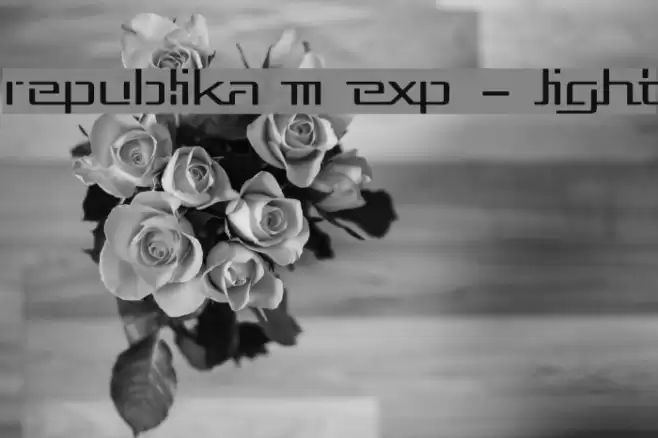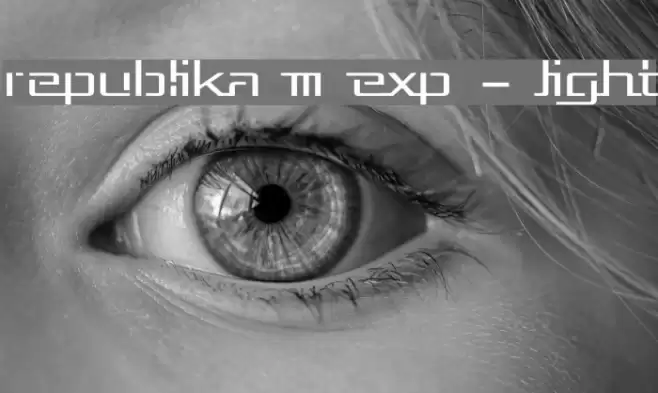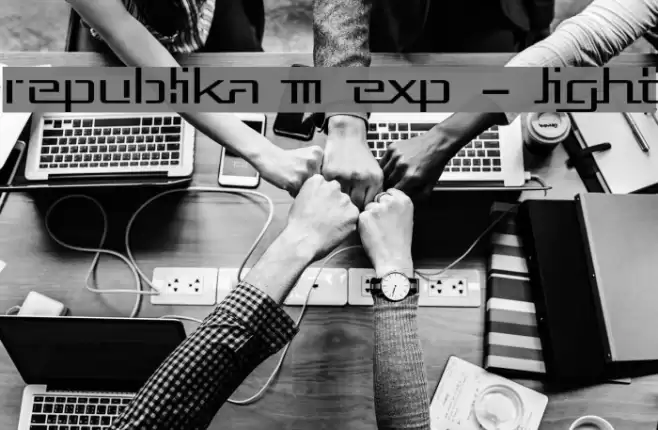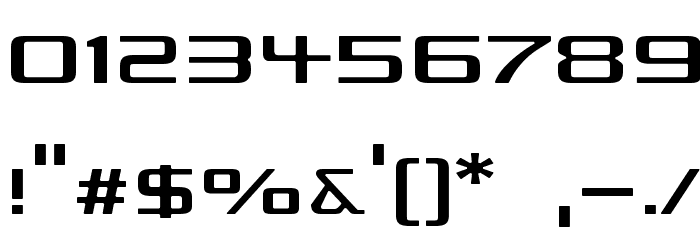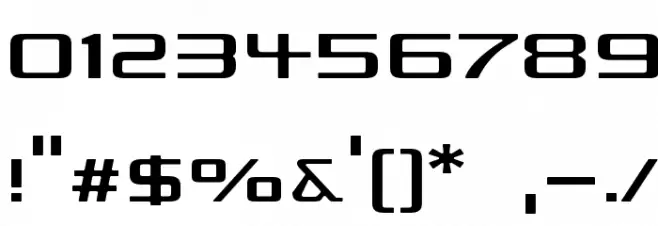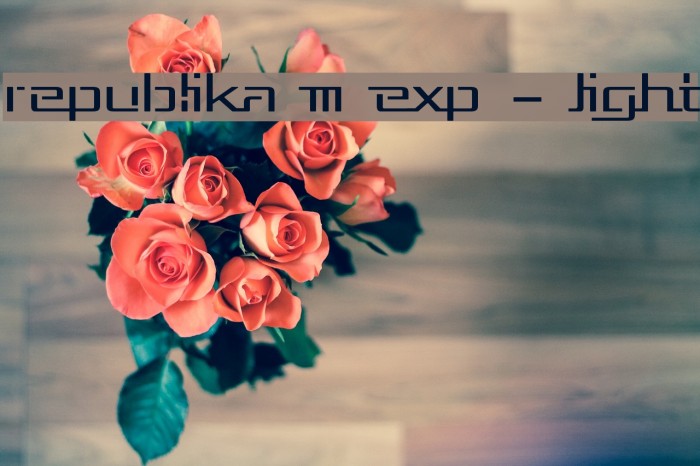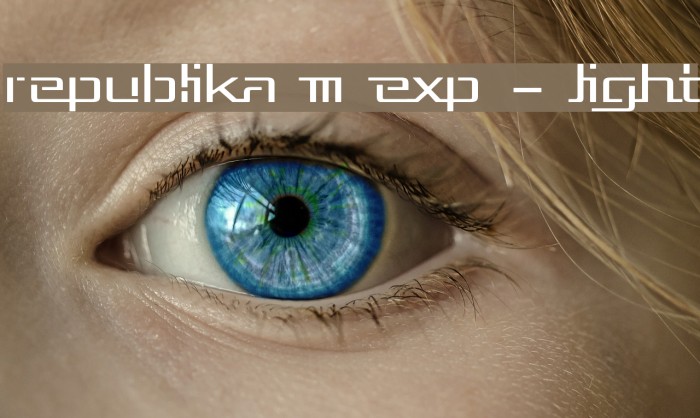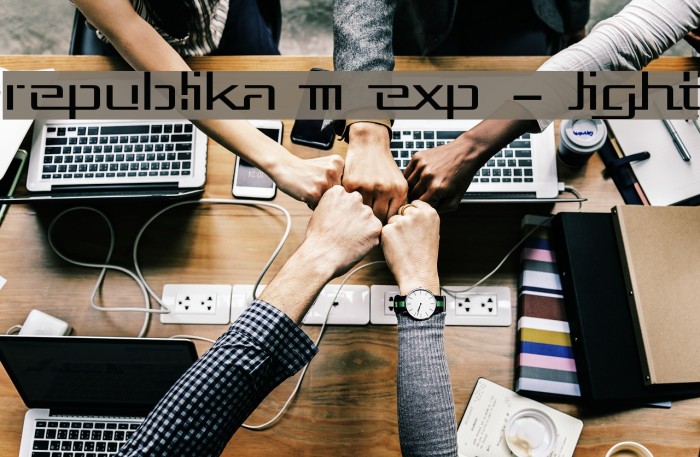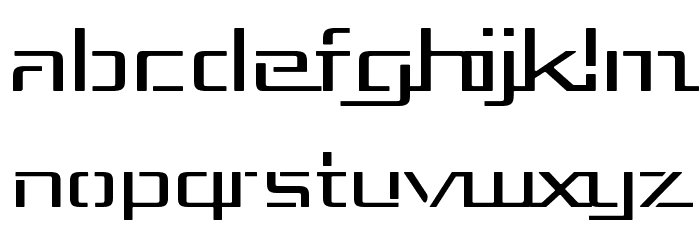
Republika III Exp - Light Font
Republika III Exp - Light Description
This font features a modern, geometric design with a futuristic feel. The characters are constructed with clean, straight lines and sharp angles, giving it a structured and technical appearance. The uppercase and lowercase letters maintain a consistent style, with a focus on simplicity and readability. The numerals and special characters follow the same design principles, ensuring uniformity across all glyphs. The font's light weight adds to its sleek and minimalistic aesthetic, making it suitable for contemporary design projects.
A modern, geometric font with a futuristic and minimalistic design from Uncategorized fonts.
- Proposed Projects: Ideal for tech branding, digital interfaces, modern posters, and futuristic-themed projects.